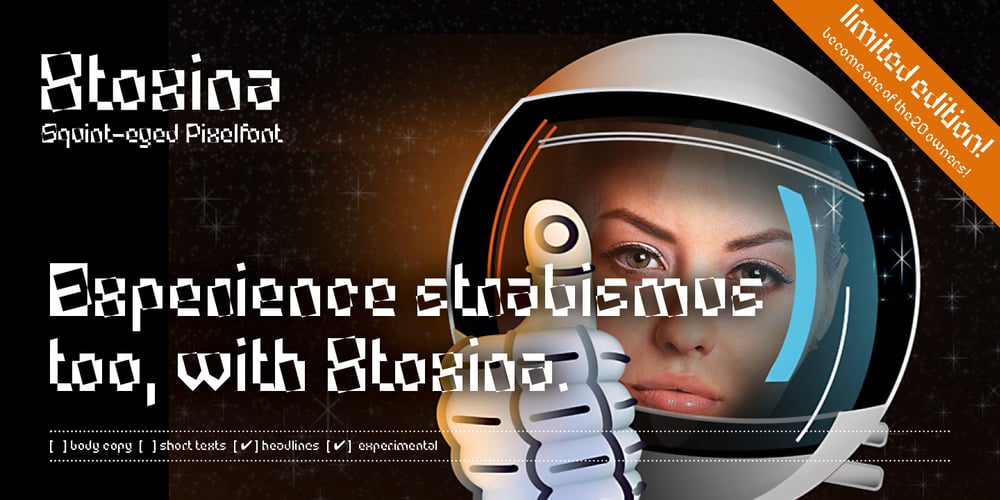
Xtoxina Font Family was designed by Filippo Salmina and published by FSdesign-Salmina. Xtoxina contains 1 styles and family package options. Xtoxina. Squint-eyed Pixelfont. Xtoxina is a new member oft the Atoxina family with experimental character. The designer must have a serious view issue! Experience strabismus too, with Xtoxina.